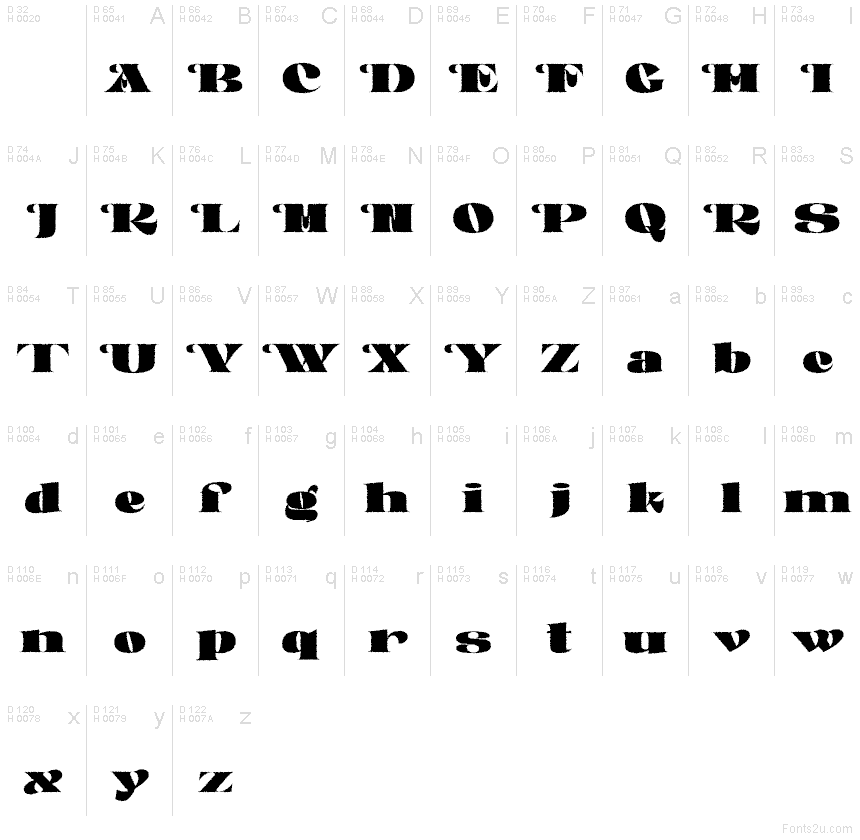
Ralko Rough Regular Demo
Ralko Rough font by Craft Supply Co. combines a distressed effect with expanded proportions for creating impactful designs. This vintage expanded display has the attributes of a typical serif typeface with some added artistic flair that makes all the difference. Its rough texture comes in its most obvious form but also in more subtle ways such as ends and outlines.
Display typography works best when it’s eye-catchy, which is innate to this bold font. Whether you’re working on a flyer, poster, signboard, banner, package design, or brochure; this resource will serve you well as an element of emphasis. It’s free and can thus also be tried for other unexpected purposes if seen fit!